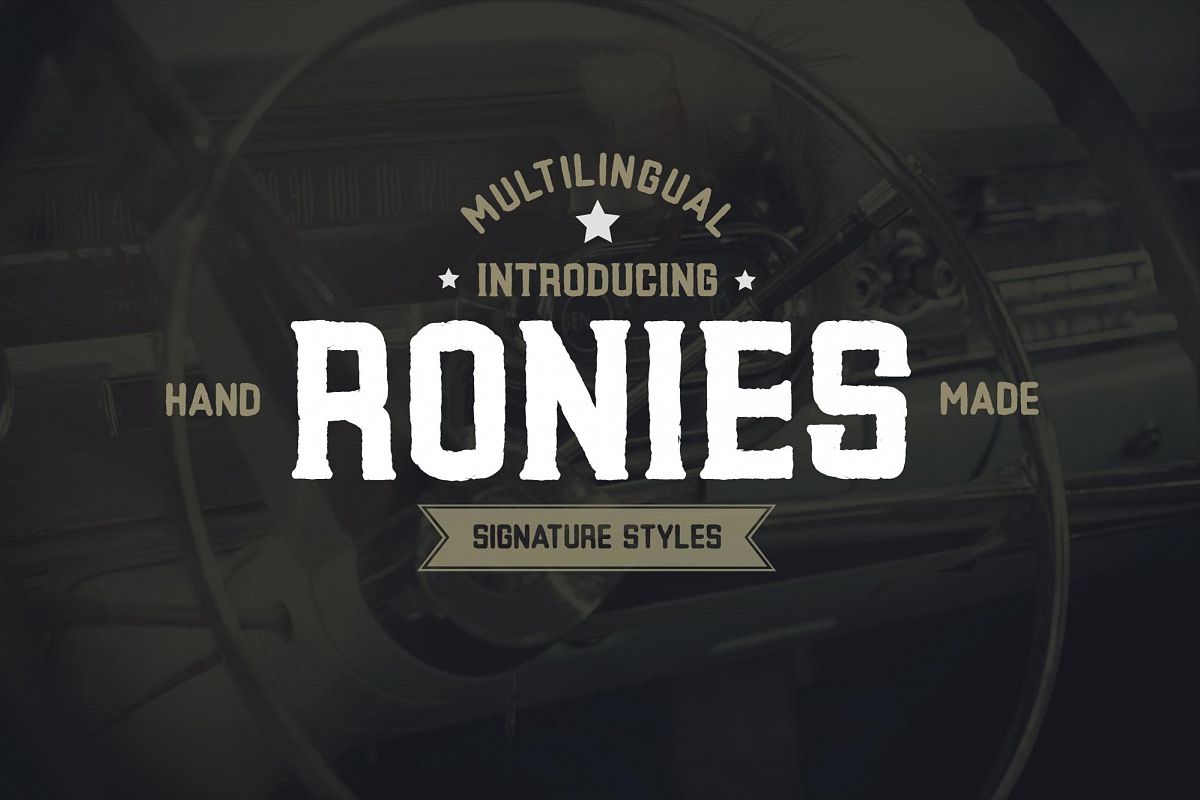
Ronies Vintage Font
Ronies
Ronies Vintage Font
Introducing Ronies! - A vintage, retro and awesome character! With different weights, it's perfect for magazine layouts, invitations, headers, or even large-scale artwork.